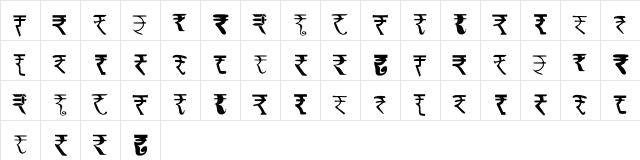
RupyFont Medium
Design Context for RupyFont Typeface
RupyFont is a composed and adaptable typeface that performs quietly and consistently across a wide range of design contexts.